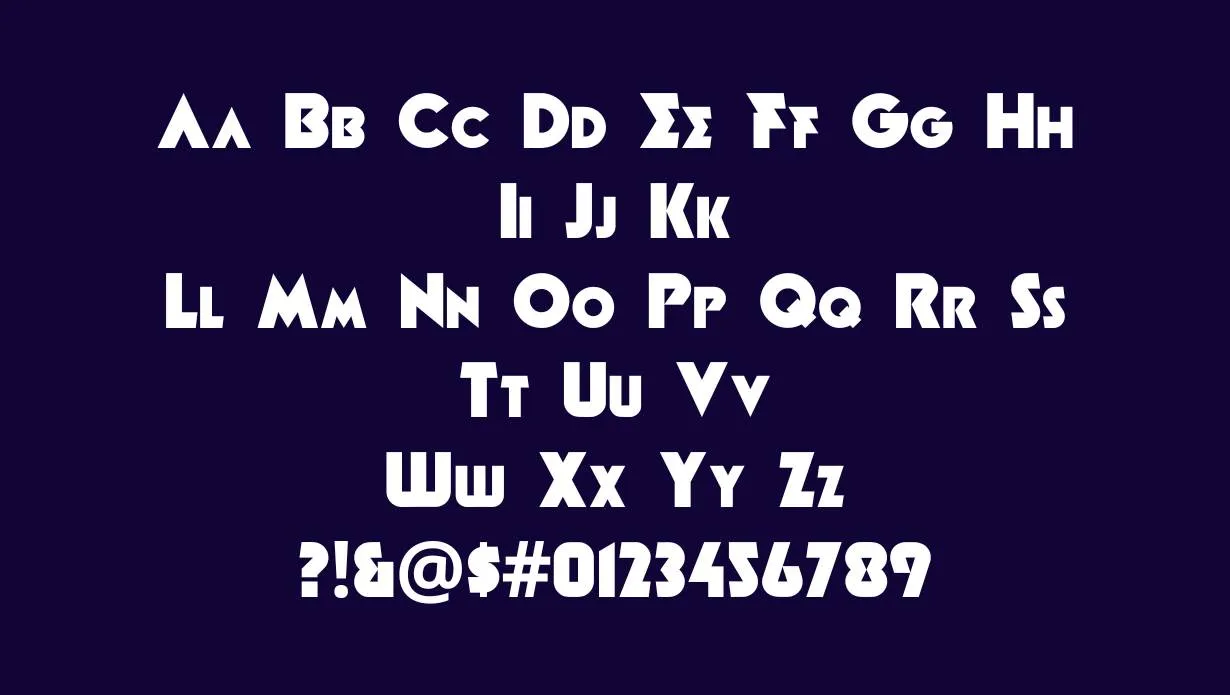
Minotaur Font is a bold and impactful typeface with a strong and distinctive design. It’s commonly used in advertising, headlines, and graphic design where a modern and eye-catching appearance is essential.
| Name | Minotaur Font |
| Designer | Jason Castle |